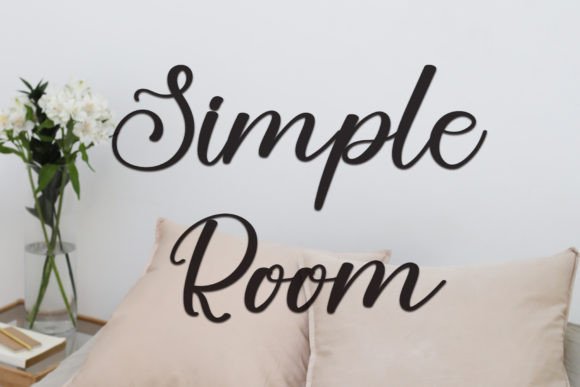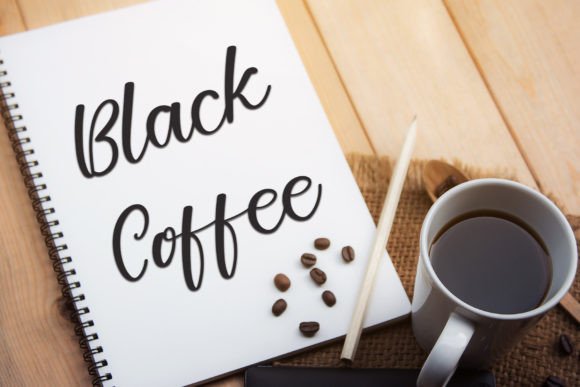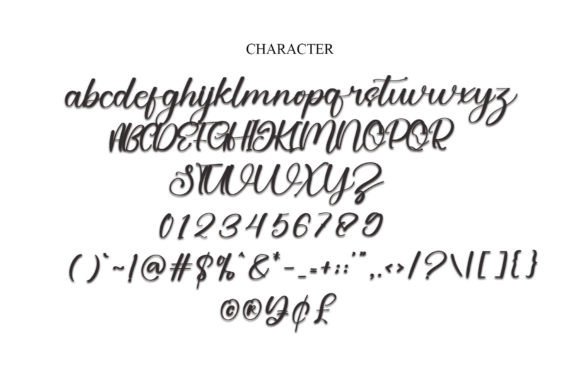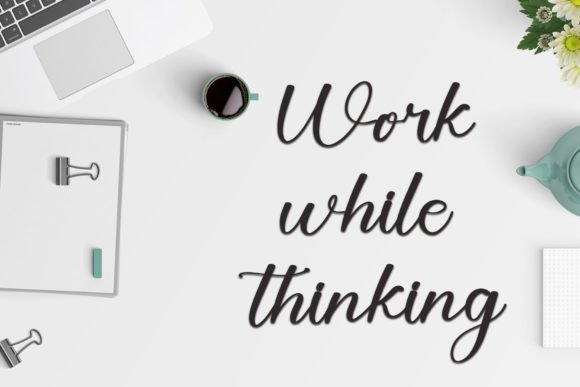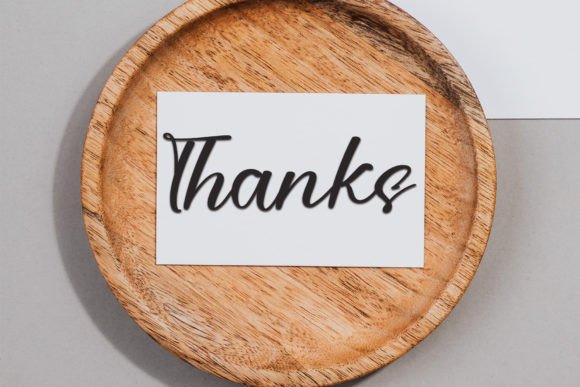
Introducing Brother Font: Elevate Your Designs with Elegance and Sophistication
In the world of typography, a font can make or break a design. For designers and crafters seeking a touch of elegance and modernity, Brother Font is an exceptional choice. This beautiful, refined handwritten font is perfect for a wide range of applications, from logos and branding to invitations, stationery, wedding designs, and social media posts.
The Characteristics of Brother Font
Brother Font is distinguished by its classy and modern aesthetic. Its handwritten nature lends a personal and approachable feel to any design, while its refined strokes and balanced proportions ensure a level of sophistication that’s hard to achieve with more generic fonts. The font’s versatility makes it an excellent choice for various design projects, allowing designers to maintain consistency across different platforms and materials.
Uses of Brother Font
- Logos and Branding: Create a lasting impression with a logo that exudes elegance and professionalism. Brother Font’s unique yet legible style ensures your brand stands out.
- Invitations and Stationery: Whether it’s a wedding invitation, a birthday party invite, or professional stationery, Brother Font adds a touch of class and sophistication.
- Wedding Designs: From wedding invitations to ceremony programs and thank-you cards, this font brings a romantic and refined feel to your wedding designs.
- Social Media Posts: Elevate your social media presence with stylish and engaging posts. Brother Font helps you maintain a consistent and professional aesthetic across all your social media platforms.
Why Choose Brother Font?
Choosing Brother Font for your design projects comes with several advantages:
- Unique and Memorable: In a sea of common fonts, Brother Font offers a distinctive look that can make your designs more memorable.
- Versatile: Its adaptability across various design projects and mediums makes it a valuable addition to any designer’s toolkit.
- Easy to Read: Despite its elegant and refined nature, Brother Font remains highly legible, ensuring your message is communicated clearly.
- Time-Saving: With Brother Font, you can achieve professional-looking results quickly, saving time on font selection and design adjustments.
Tips for Using Brother Font Effectively
To get the most out of Brother Font, consider the following tips:
- Pair it Wisely: Combine Brother Font with complementary fonts to create visual interest. A sans-serif font for headings and Brother Font for body text can make for a compelling combination.
- Adjust Letter Spacing: For optimal readability, especially in longer texts, slightly increase the letter spacing to give the text some breathing room.
- Play with Colors: While Brother Font shines in its natural form, experimenting with colors can add another layer of personality to your designs.
Brother Font is more than just a font; it’s a design tool that can elevate your projects to new heights of elegance and sophistication. Whether you’re a professional designer or a DIY crafter, this versatile and beautiful handwritten font offers endless possibilities for creative expression. With Brother Font, you can create stunning logos, captivating social media posts, elegant invitations, and much more, all with a classy and modern touch.